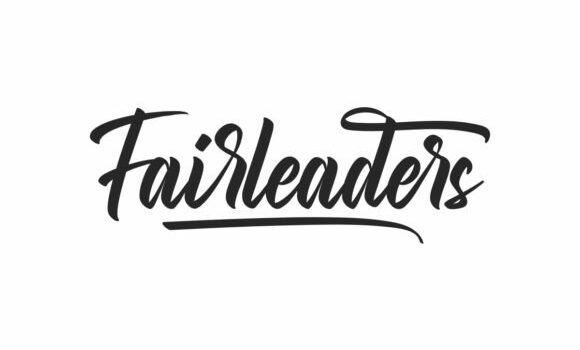
fairleaders
Fairleaders Font – Free Download Introduction to Fairleaders Font Fairleaders is a classic and flowing handwritten font. 📸 Preview Gallery 6 images 📌 Product Name Fairleaders Font 👤 Author NihStudio 📂 Category Explore ⬇️ Download Fairleaders Font FREE Free Download